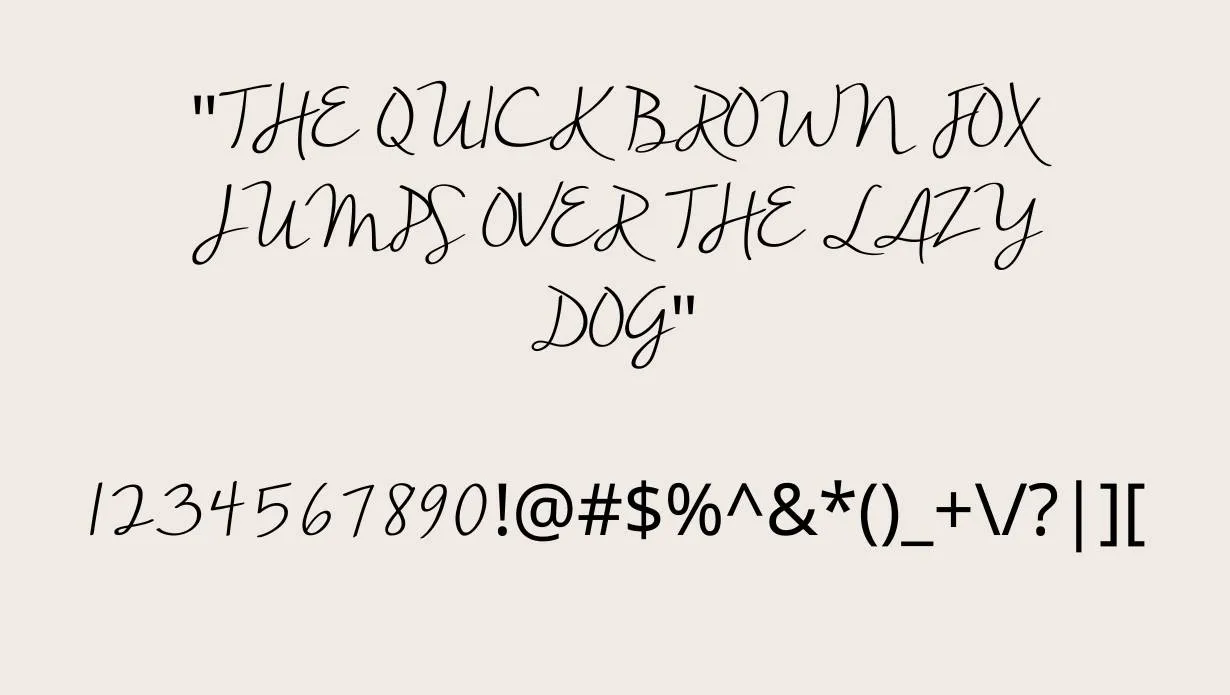
Nella Sue Font is a delightful typeface that brings a sense of charm and grace to your designs. Its elegant curves and timeless style make it an excellent choice for invitations, greeting cards, and vintage-themed projects.
Whether you’re planning a wedding or creating a poster with a touch of nostalgia, Nella Sue Font adds a touch of timeless elegance to your work.